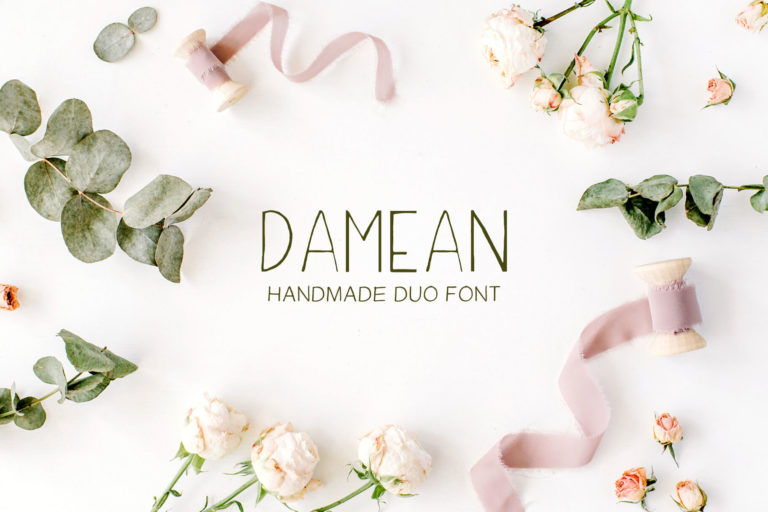
- Damean Handmade Duo Font
Damean Regular
Dalphina Regular
Damean is a cool & refreshing handwritten duo font. It comes up with a complete set of Lowercase, Uppercase Numbers and Alternates. It is Perfect for prints, logos, quotes, badges, labels, packaging design, blog, websites, designs, headlines, banners, posters, printings, T-shirts, magazines, promotional product, templates, etc.
- Font Weight: Regular, Thin, Light and Outline
Damean Font Duo Features:
- Uppercase Multilingual Letters
- Lowercase Multilingual Letters
- Non English Characters
- Font Weight: Regular
Dalphina Font Features:
- Uppercase Multilingual Letters
- Lowercase Multilingual Letters
- Non-English Characters